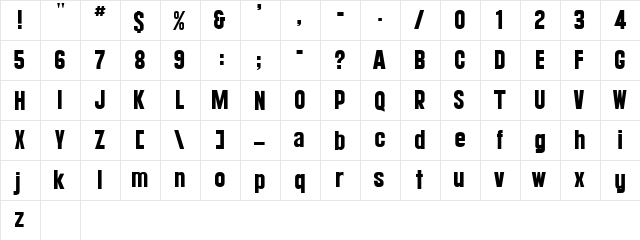
BlackTower Regular
Design Context for BlackTower Typeface
BlackTower offers clean, dependable letterforms without strong stylistic allegiance, making it a practical choice for designers who need flexibility.
Pro Tip: Use BlackTower in both headline and body roles to test its range before committing to a single application.